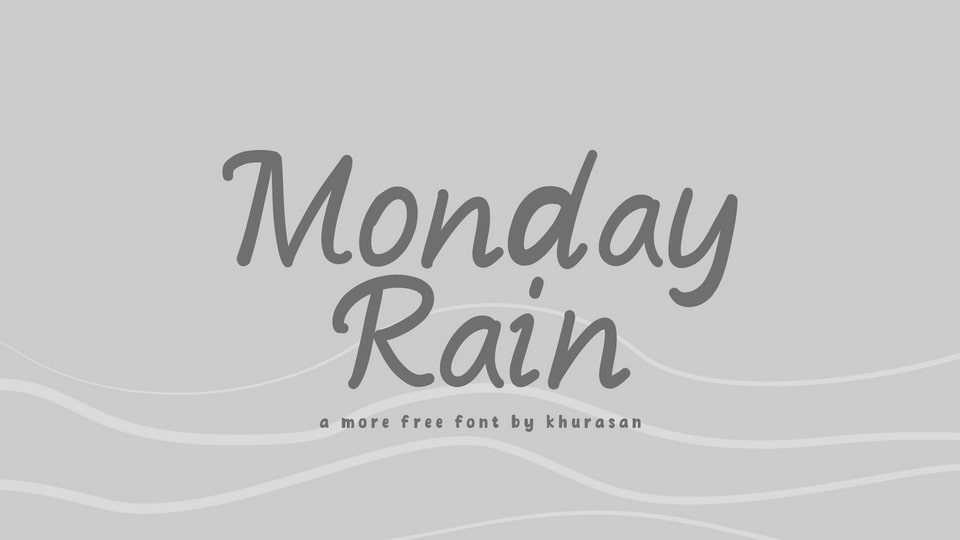
Download Monday Rain font, a typeface that effortlessly combines the charm of handwritten text with the whimsy of comic books. Each character is carefully crafted with a casual, doodle-like quality that exudes an air of approachability and lightheartedness.